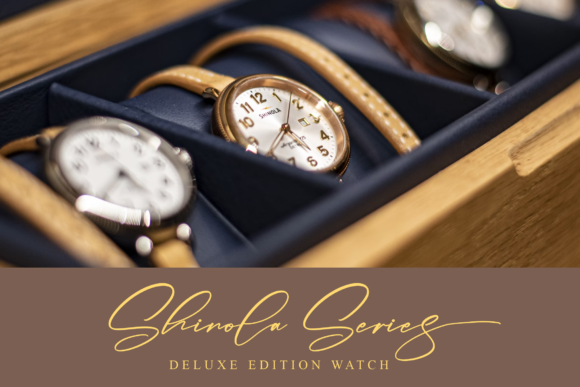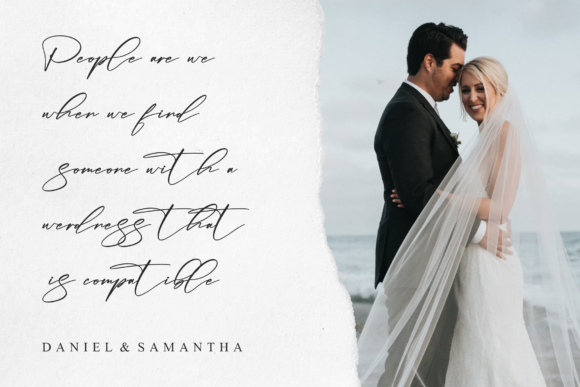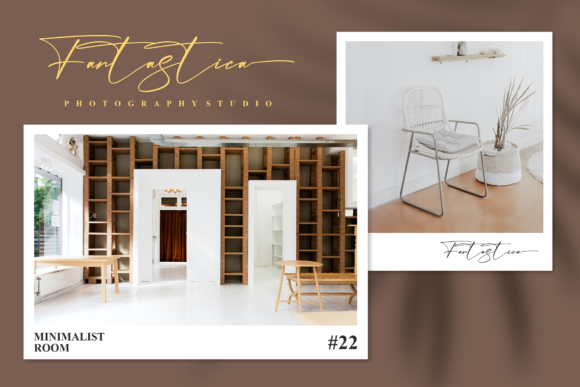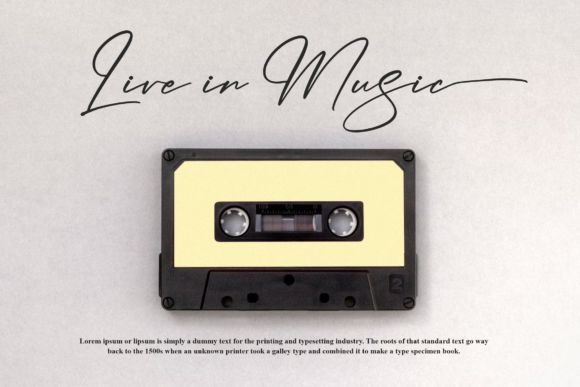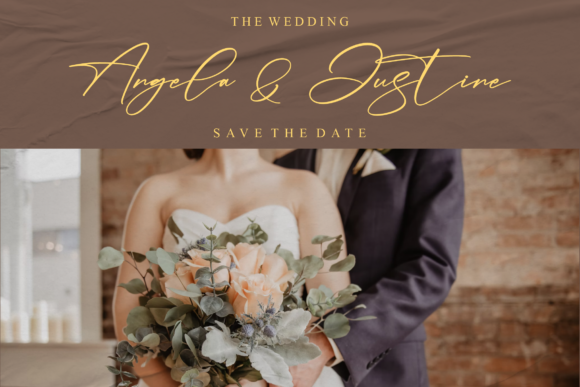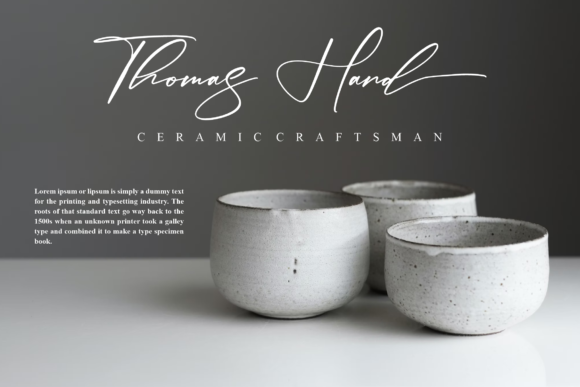
Ghalisha Font: Elevate Your Designs with Elegance and Sophistication
In the world of design, typography plays a crucial role in conveying the tone and aesthetic of a project. For designers and crafters seeking to add a touch of elegance and sophistication to their work, the Ghalisha Font is an excellent choice. This stunning script font is designed to make a statement, perfect for a variety of applications, from packaging products to invitation cards, flyers, mockups, event posters, and more.
What is Ghalisha Font?
Ghalisha is a free-flowing script font that exudes high-quality vibes, making it ideal for designs that require a touch of luxury and refinement. Its fluid strokes and elegant letterforms create a sense of movement and sophistication, perfect for capturing the attention of your audience. Whether you’re working on a branding project, creating event materials, or designing packaging, Ghalisha Font is sure to elevate your designs to the next level.
Key Features of Ghalisha Font
- PUA Encoded: Ghalisha Font is PUA (Private Use Area) encoded, which means you can access all the glyphs and swashes with ease. This feature allows you to unlock the full potential of the font, giving you more creative freedom and flexibility.
- High-Quality Design: The font is meticulously crafted to ensure high-quality output, making it perfect for printing and digital applications.
- Versatile: Ghalisha Font is suitable for a wide range of design projects, from elegant wedding invitations to sophisticated branding materials.
Use Cases for Ghalisha Font
Ghalisha Font is an incredibly versatile font that can be used in various design projects, including:
- Packaging Design: Add a touch of luxury to your product packaging with Ghalisha Font, perfect for high-end brands and premium products.
- Invitation Cards: Create stunning wedding invitations, birthday cards, and other event invitations with Ghalisha Font’s elegant script.
- Flyers and Brochures: Make your marketing materials stand out with Ghalisha Font’s sophisticated and eye-catching design.
- Mockups: Use Ghalisha Font to add a touch of realism to your mockups, perfect for showcasing branding and packaging designs.
- Event Posters: Create visually striking event posters with Ghalisha Font, ideal for concerts, festivals, and other events.
Benefits of Using Ghalisha Font
By incorporating Ghalisha Font into your design projects, you can enjoy several benefits, including:
- Elegance and Sophistication: Ghalisha Font adds a touch of luxury and refinement to your designs, perfect for high-end brands and premium products.
- Improved Readability: The font’s clear and flowing script makes it easy to read, even at smaller sizes.
- Flexibility: With PUA encoding, you can access a wide range of glyphs and swashes, giving you more creative freedom and flexibility.
In conclusion, Ghalisha Font is an exceptional script font that can elevate your designs to new heights. Its elegant and sophisticated design makes it perfect for a wide range of applications, from packaging products to event posters. With its PUA encoding and high-quality design, Ghalisha Font is an excellent choice for designers and crafters seeking to add a touch of luxury and refinement to their work.